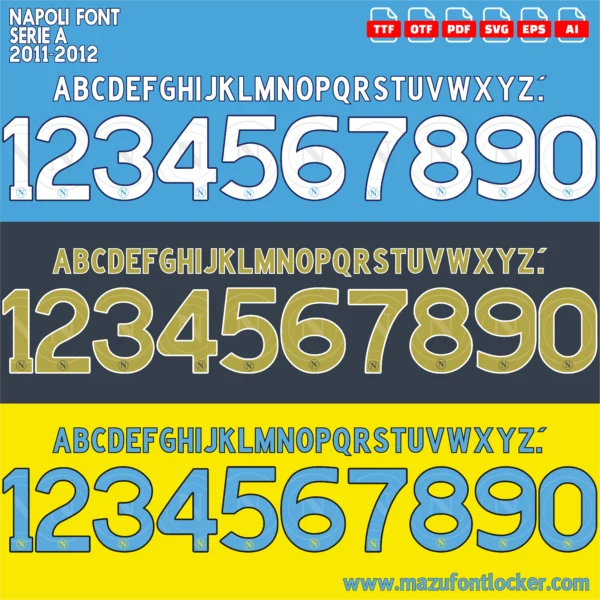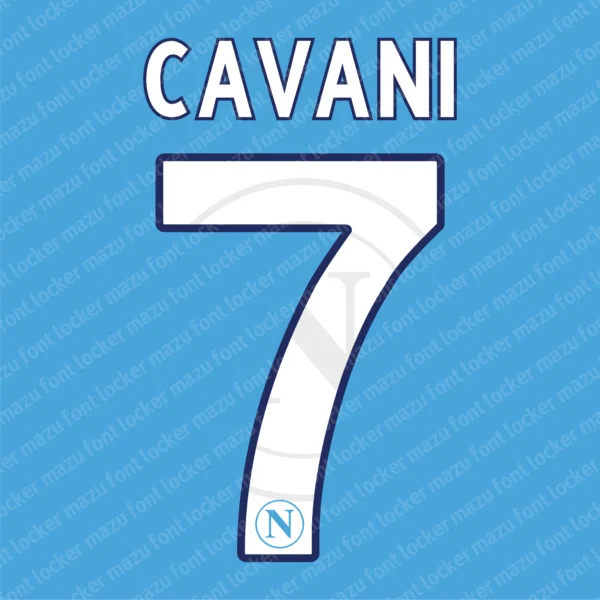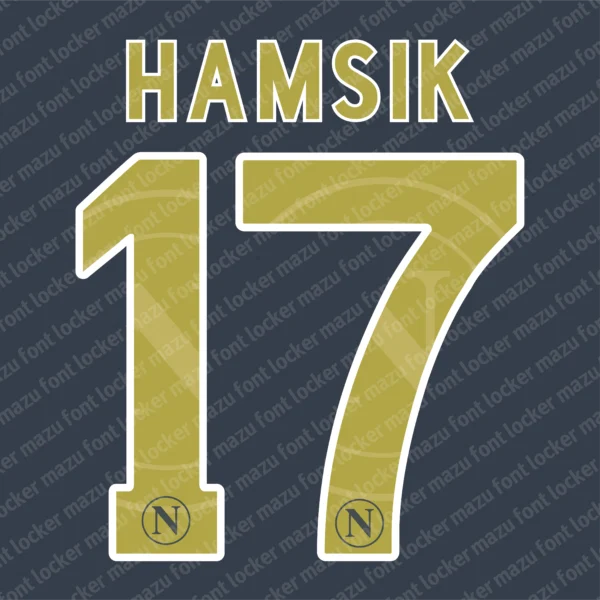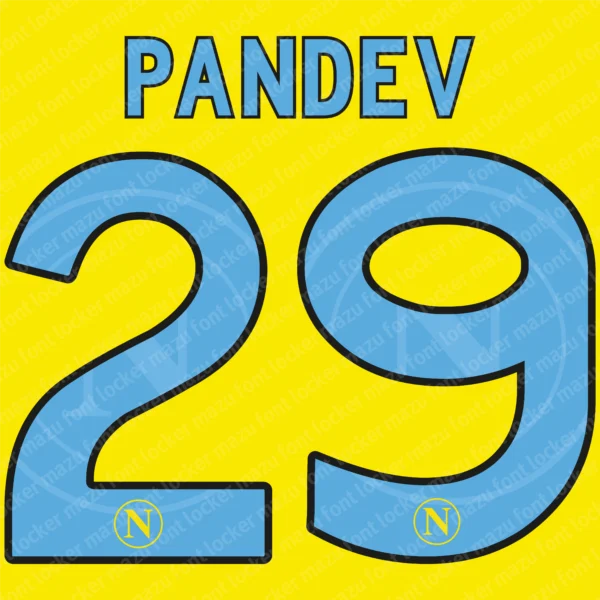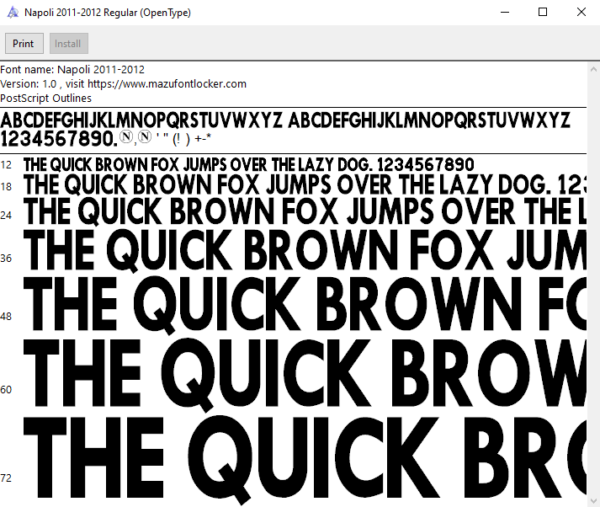
Napoli 2011-2012 Font Vector – Stunning Partenopei Legacy Typeface
This premium font captures the bold, iconic, fearless, and championship-inspired lettering that embodies the passionate Partenopei identity — delivering explosive Stadio San Paolo atmosphere, relentless Neapolitan pride, attacking brilliance, unwavering determination, tactical excellence, and the legendary fighting spirit that powered Napoli to domestic cup glory and an unforgettable return to Europe’s biggest stage, cementing their place among Italy’s football elite.
Napoli 2011-2012 Font Vector – Authentic Partenopei Typeface
The Napoli 2011-2012 Font Vector is a premium typeface that faithfully recreates the official match lettering worn by SSC Napoli during the unforgettable 2011-2012 season. This high-quality vector font kit captures the bold, elegant, and professional typography that accompanied one of Napoli’s most exciting campaigns, highlighted by memorable performances in both Serie A and European competition.
Designed for football designers, jersey collectors, and passionate Napoli supporters, the Napoli 2011-2012 Font Vector delivers exceptional authenticity for creating realistic jersey mockups, custom fan apparel, football graphics, social media content, and Italian football-inspired projects. The font perfectly complements Napoli’s iconic sky blue kit, instantly recognized by football fans around the world.
Why Choose Napoli 2011-2012 Font Vector
This font kit offers outstanding vector precision and authentic club styling. Every letter and number has been carefully recreated to match the official shirt printing used throughout Napoli’s 2011-2012 campaign. Whether you’re designing professional kit concepts or celebrating the legacy of the Partenopei, this font delivers the unmistakable atmosphere of the Stadio San Paolo.
The Napoli 2011-2012 Font Vector features bold geometric letterforms with clean edges and balanced proportions. Inspired by the official match typography, every character combines modern athletic styling with Napoli’s timeless football identity, ensuring excellent readability across every design application.
The numbers showcase smooth curves, sharp detailing, and consistent spacing for a professional on-field appearance. Built entirely as scalable vectors, every numeral remains crisp and accurate for both digital projects and high-resolution printing.
- Complete uppercase A–Z alphabet and numbers 0–9
- Special Napoli logo glyph – Press the “:” (Colon mark) symbol to insert the logo
- Multilingual Latin character support with special characters
- Includes accurate club crest glyph positioning beneath player numbers.
Napoli 2011-2012 Season
The 2011-2012 season saw Napoli compete in Serie A, the Coppa Italia, the UEFA Champions League, and the UEFA Europa League. Featuring stars such as Edinson Cavani, Marek Hamšík, Ezequiel Lavezzi, Gökhan İnler, Christian Maggio, and Paolo Cannavaro, Napoli reached the UEFA Champions League Round of 16 and lifted the Coppa Italia by defeating Juventus in the final, securing the club’s first major trophy in over two decades.